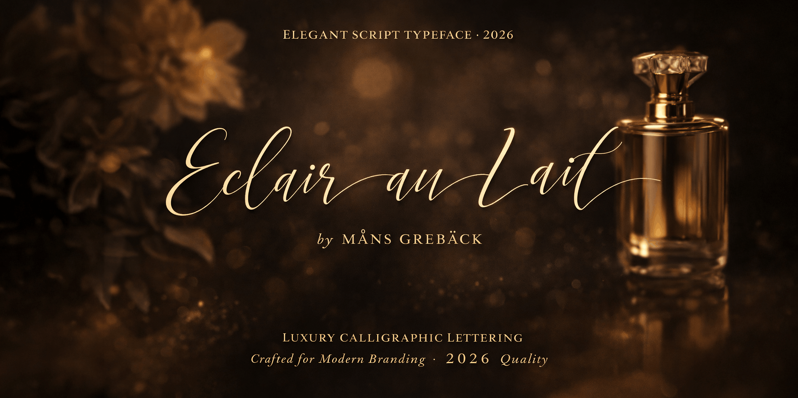
Eclair Au Lait
NOTE: This font is for PERSONAL USE ONLY! To purchase a commercial license, visit: https://www.mansgreback.com/product/eclair-au-lait Eclair au Lait is a script typeface with a quick sense of movement. It blends classic calligraphic structure with a light, modern touch, creating lettering that feels graceful without being rigid. The strokes are wild and flowing, with subtle contrast and carefully shaped curves. For questions, please visit https://mansgreback.com/faq